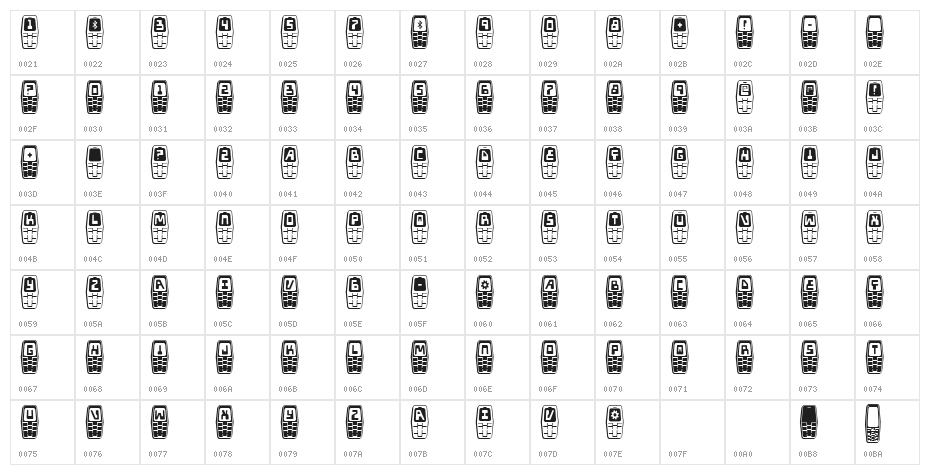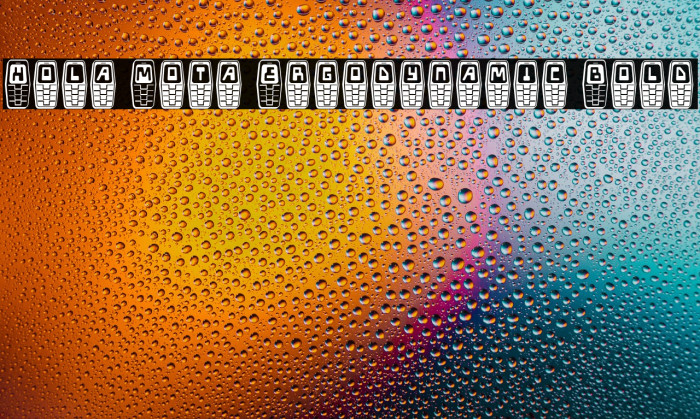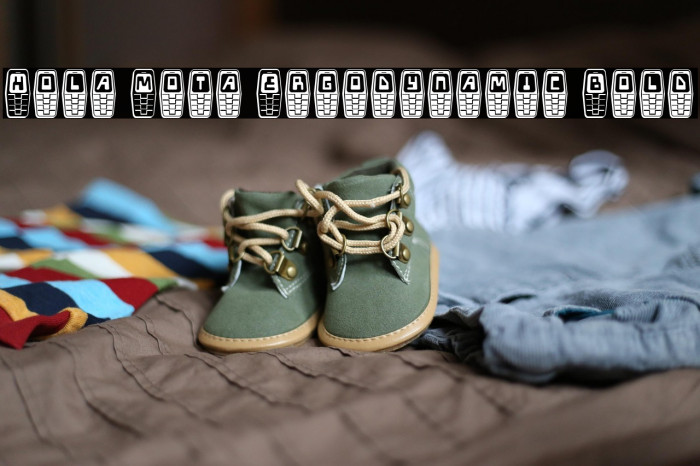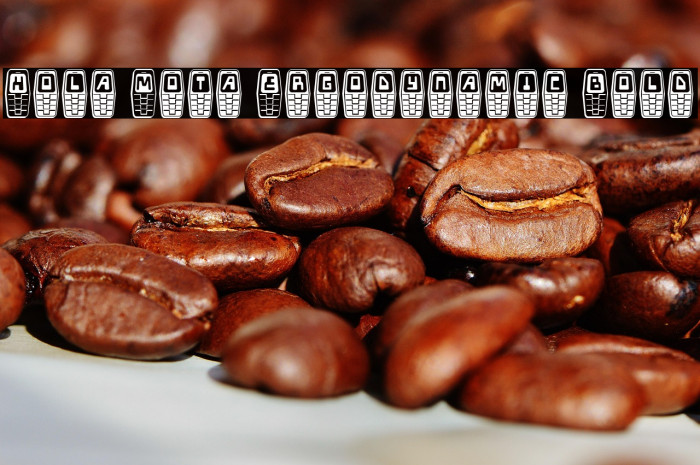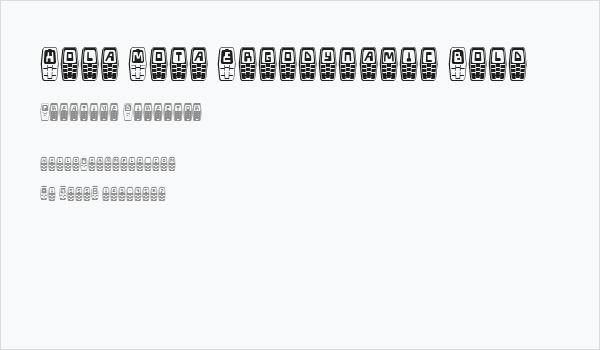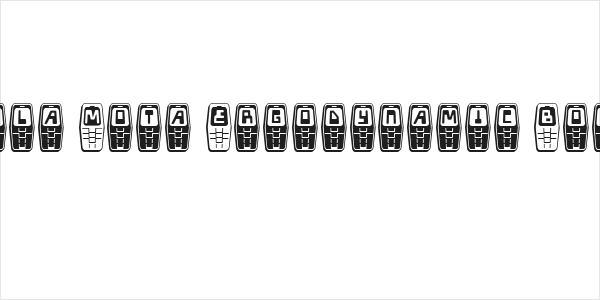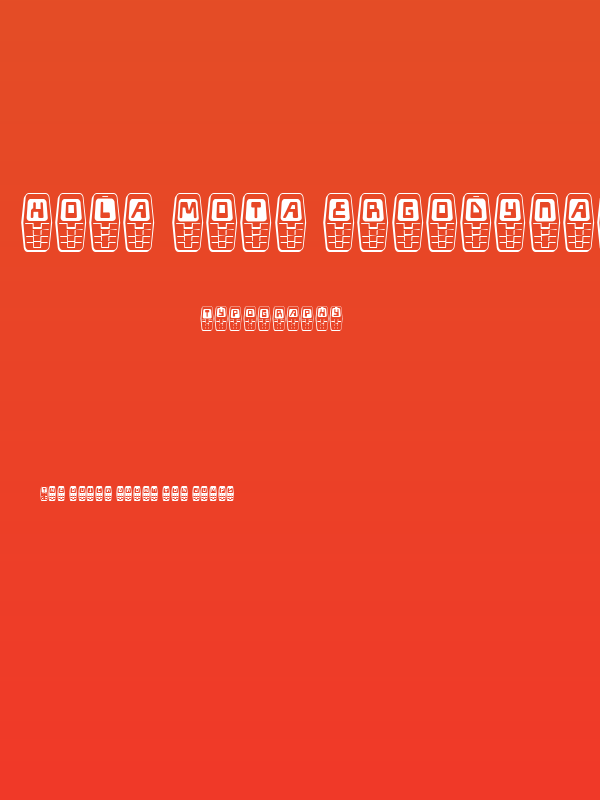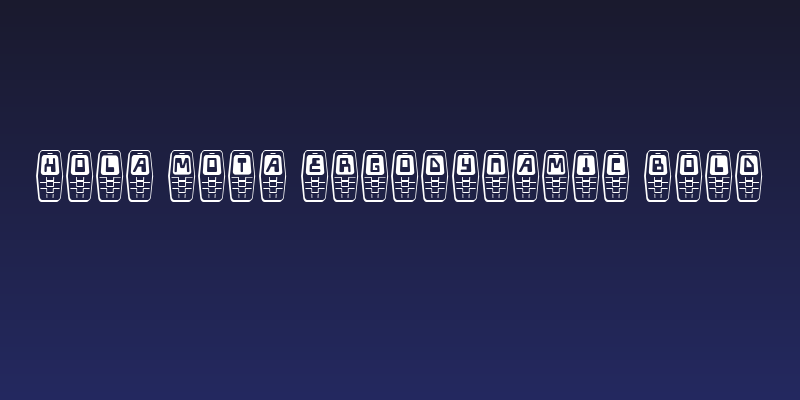
Hola Mota Ergodynamic Bold Font
Hola Mota Ergodynamic Bold Description
This font features a bold and dynamic design with a futuristic and geometric aesthetic. Each character is enclosed within a coffin-like shape, giving it a unique and edgy appearance. The letters and numbers are stylized with sharp angles and a blocky structure, creating a strong visual impact. The font's design is consistent across uppercase, lowercase, and numerical characters, maintaining a cohesive look. Special characters are also included, following the same bold and structured style. The overall design is striking and modern, making it suitable for projects that require a distinctive and attention-grabbing typeface.
| Proposed Projects | Ideal for video game graphics, sci-fi movie posters, edgy branding, and modern digital art. |